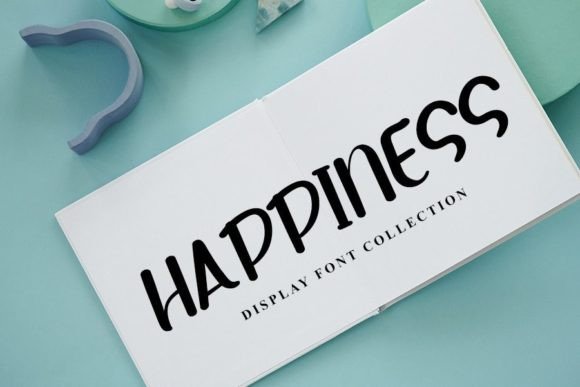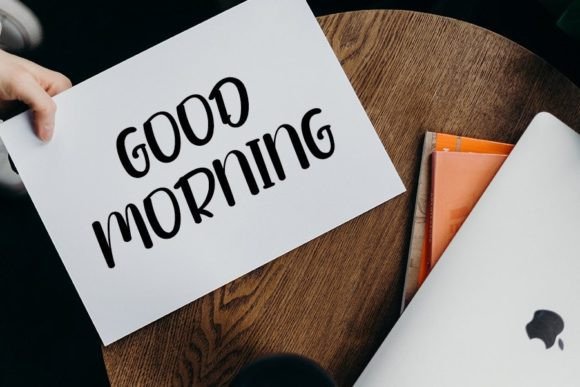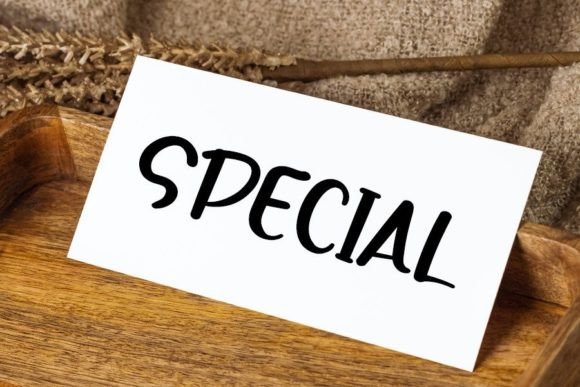
Introducing Beach Font: Elevate Your Designs with Elegance and Timeless Style
Are you on the hunt for a font that exudes elegance, sophistication, and a touch of timeless charm? Look no further than Beach Font, a beautifully crafted handwritten font that’s sure to capture your heart. With its distinct and refined style, Beach Font is the perfect addition to your design arsenal, whether you’re working on a personal project or a professional endeavor.
The Beauty of Beach Font
Beach Font is a neat and beautiful handwritten font that boasts an elegant touch, making it an excellent choice for designers and crafters looking to add a touch of sophistication to their work. Its incredibly distinct and timeless style sets it apart from other fonts, ensuring that your designs stand out from the crowd.
Whether you’re creating a logo, branding materials, social media graphics, or any other visual content, Beach Font is the perfect choice. Its versatility and flexibility make it suitable for a wide range of applications, from digital designs to print materials.
Key Features of Beach Font
- Elegant and Refined Style: Beach Font features a beautifully crafted handwritten style that’s both elegant and refined, making it perfect for designs that require a touch of sophistication.
- Distinct and Timeless: The font’s distinct and timeless style ensures that your designs stand out from the crowd and remain relevant for years to come.
- Versatile and Flexible: Beach Font is suitable for a wide range of applications, from digital designs to print materials, making it an excellent addition to your design arsenal.
- Easy to Read: The font’s clear and legible design ensures that your text is easy to read, even at smaller sizes.
Why Choose Beach Font?
With so many fonts available, why choose Beach Font? Here are just a few reasons why Beach Font stands out from the crowd:
- Unique Style: Beach Font features a unique and distinctive style that’s sure to set your designs apart from the crowd.
- Elegant and Sophisticated: The font’s elegant and sophisticated style makes it perfect for designs that require a touch of refinement and luxury.
- High-Quality Design: Beach Font is designed with high-quality craftsmanship in mind, ensuring that your designs look professional and polished.
How to Use Beach Font
Using Beach Font is easy! Here are a few tips to get you started:
- Pair it with Other Fonts: Beach Font pairs well with other fonts, making it easy to create stunning font combinations.
- Experiment with Sizes and Colors: Don’t be afraid to experiment with different sizes and colors to find the perfect combination for your design.
- Use it for Headings and Titles: Beach Font is perfect for headings and titles, adding a touch of elegance and sophistication to your designs.
| Font Name | Beach Font |
| Author | Kongsi.Co |
In conclusion, Beach Font is a beautifully crafted handwritten font that’s perfect for designers and crafters looking to add a touch of elegance and sophistication to their work. With its distinct and timeless style, versatility, and flexibility, Beach Font is an excellent addition to your design arsenal. So why wait? Fall in love with Beach Font and start creating spectacular designs today!
Whether you’re a seasoned designer or just starting out, Beach Font is sure to inspire your creativity and help you create stunning designs that leave a lasting impression. So go ahead, give Beach Font a try, and experience the power of elegant and refined typography for yourself!